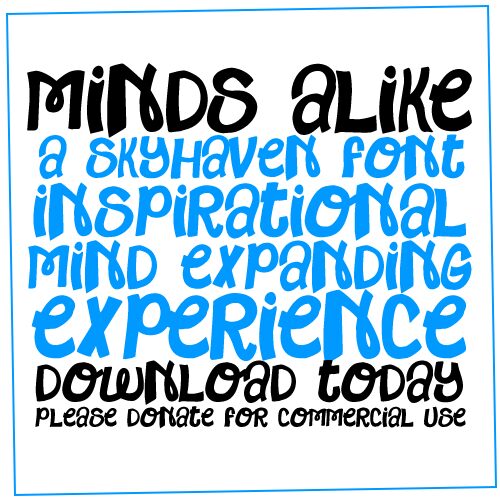
Minds Alike by Skyhaven is a free comic display font with chunky, uneven letters and a lively hand-drawn silhouette. The bouncing shapes keep each line loose and animated.
On food packaging and drink labels, the rounded weight and goofy irregularity can turn a product name into part of the illustration. It also suits children's book covers, comedy posters, and casual merchandise, especially when the lettering needs the punch of a bold drawn logo. The friendly exaggeration is aimed squarely at young audiences and brands built around humor, snacks, or playful entertainment.